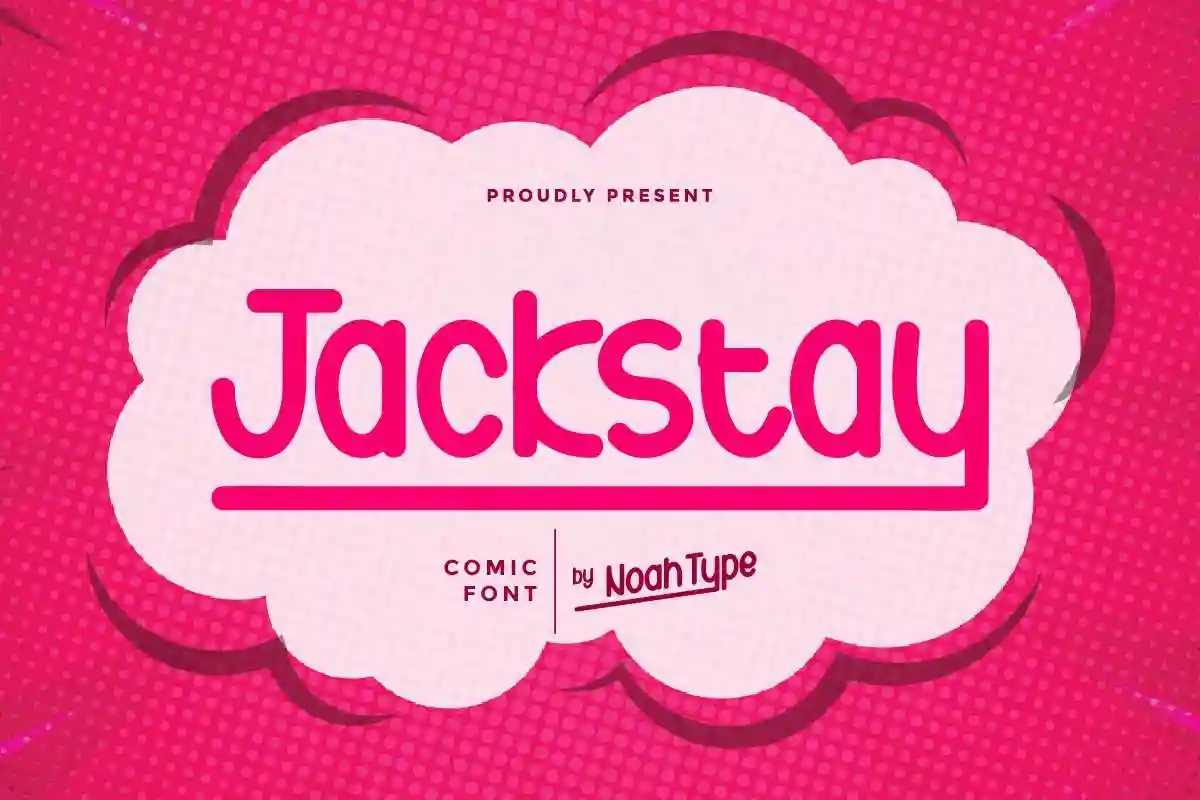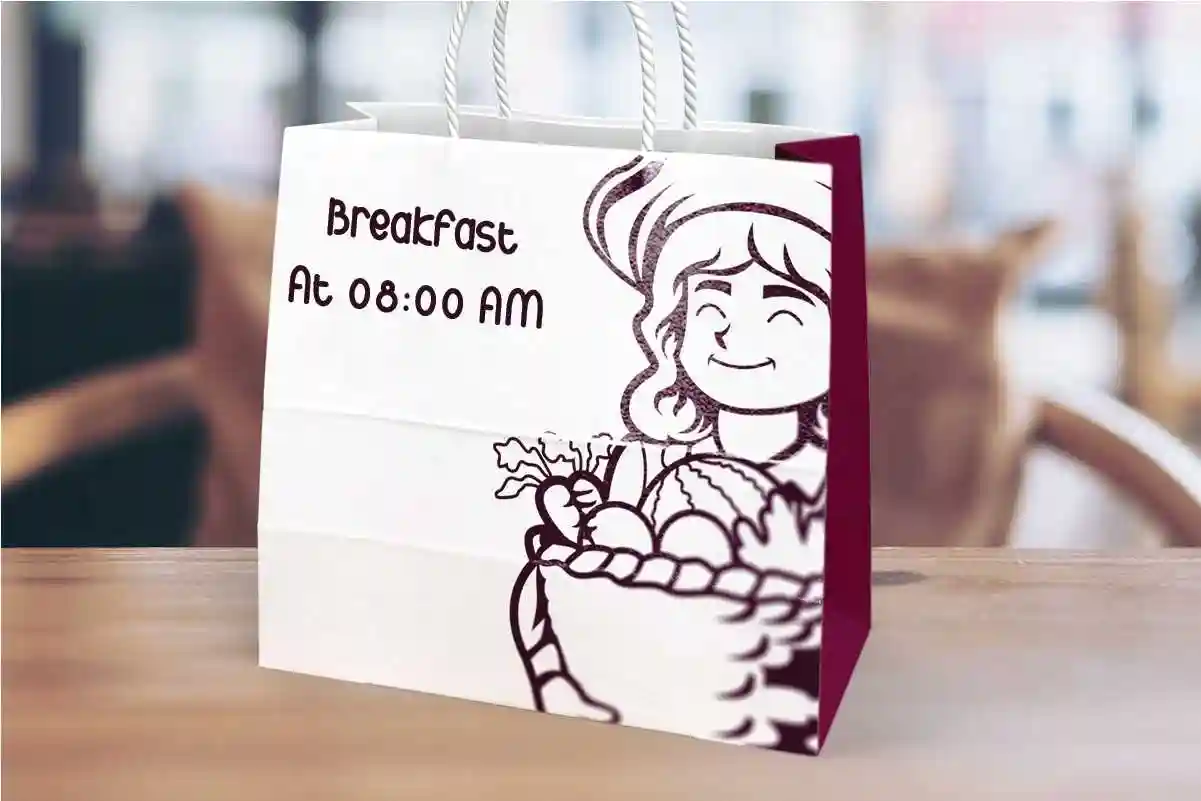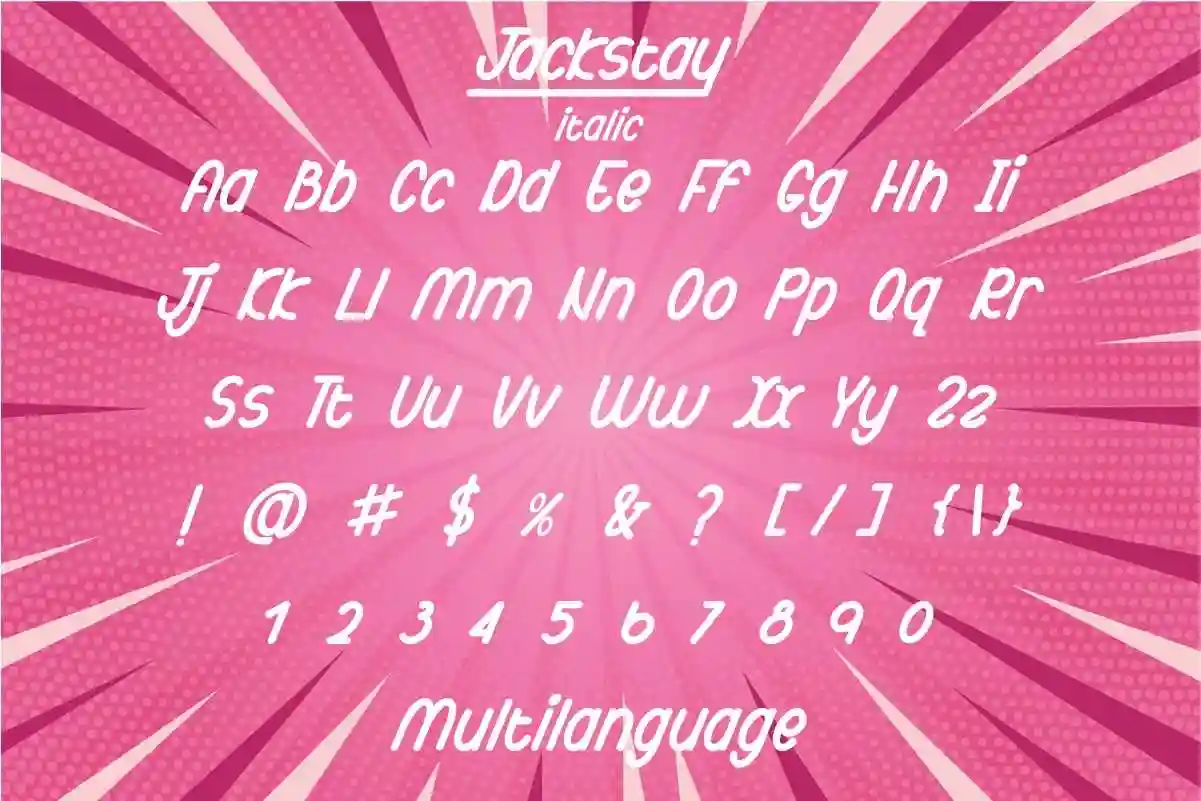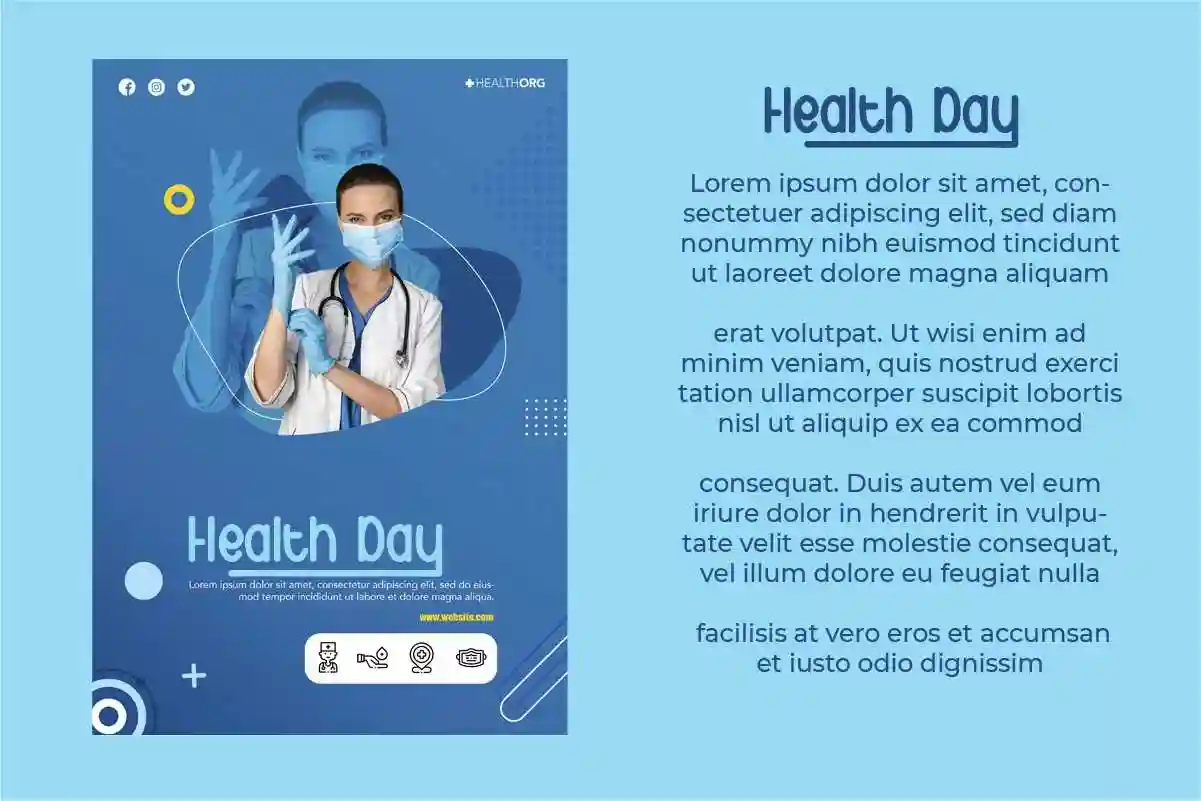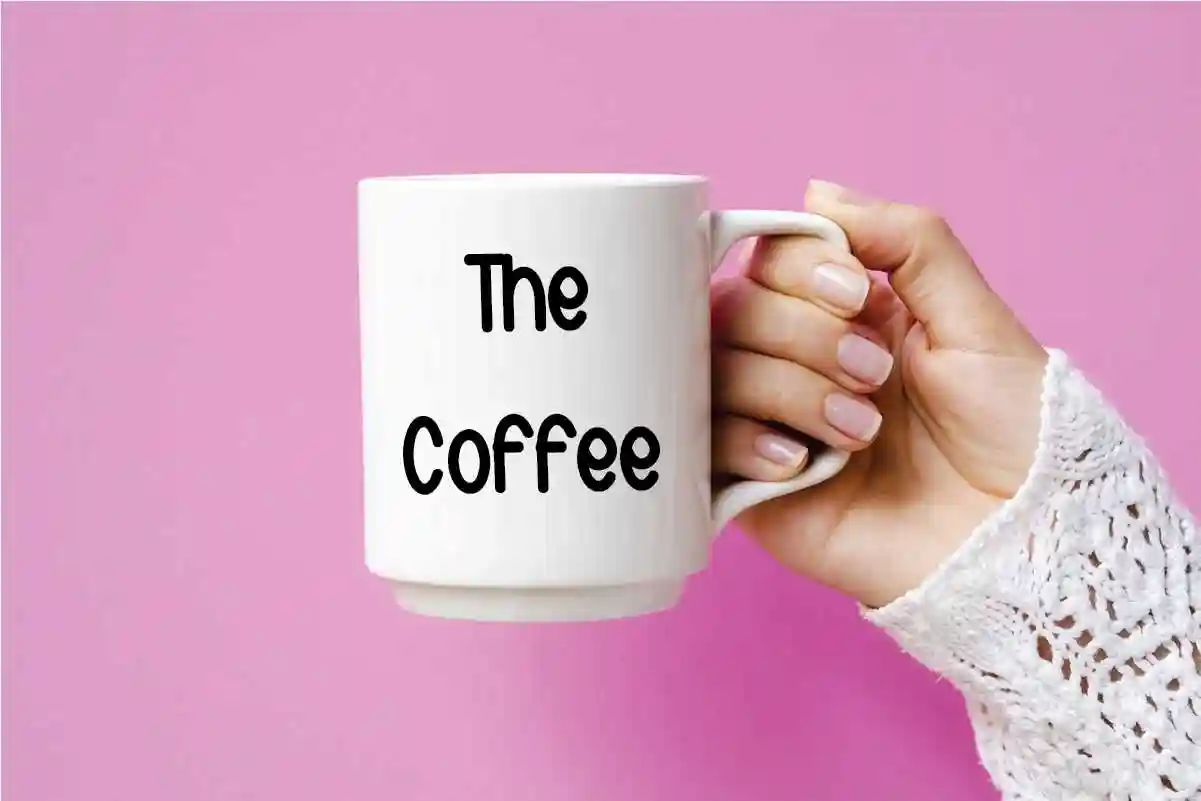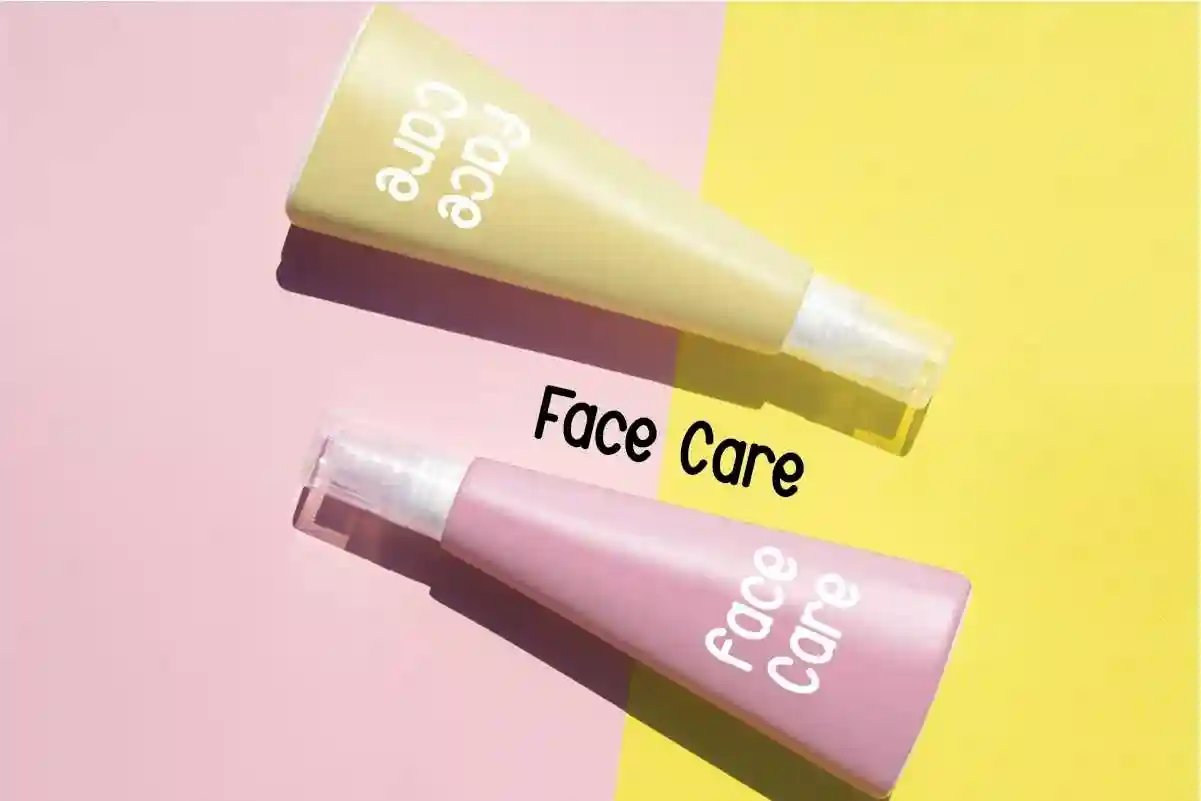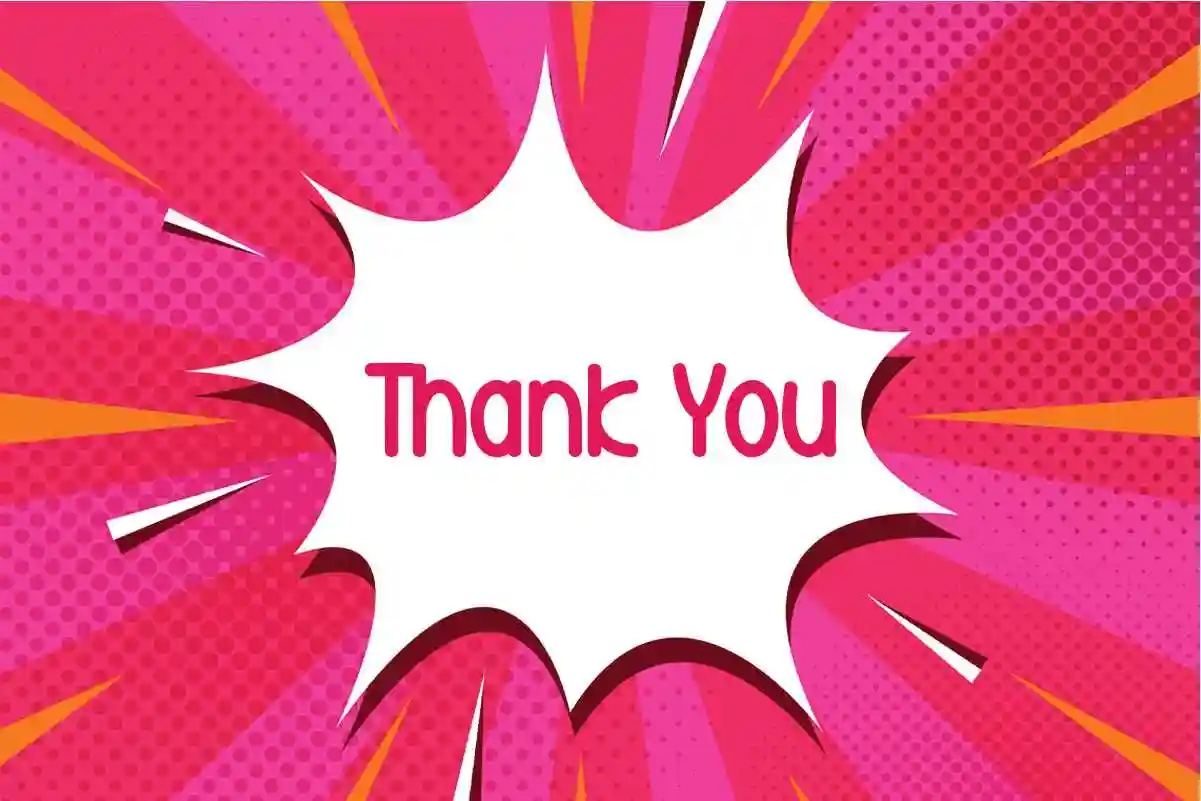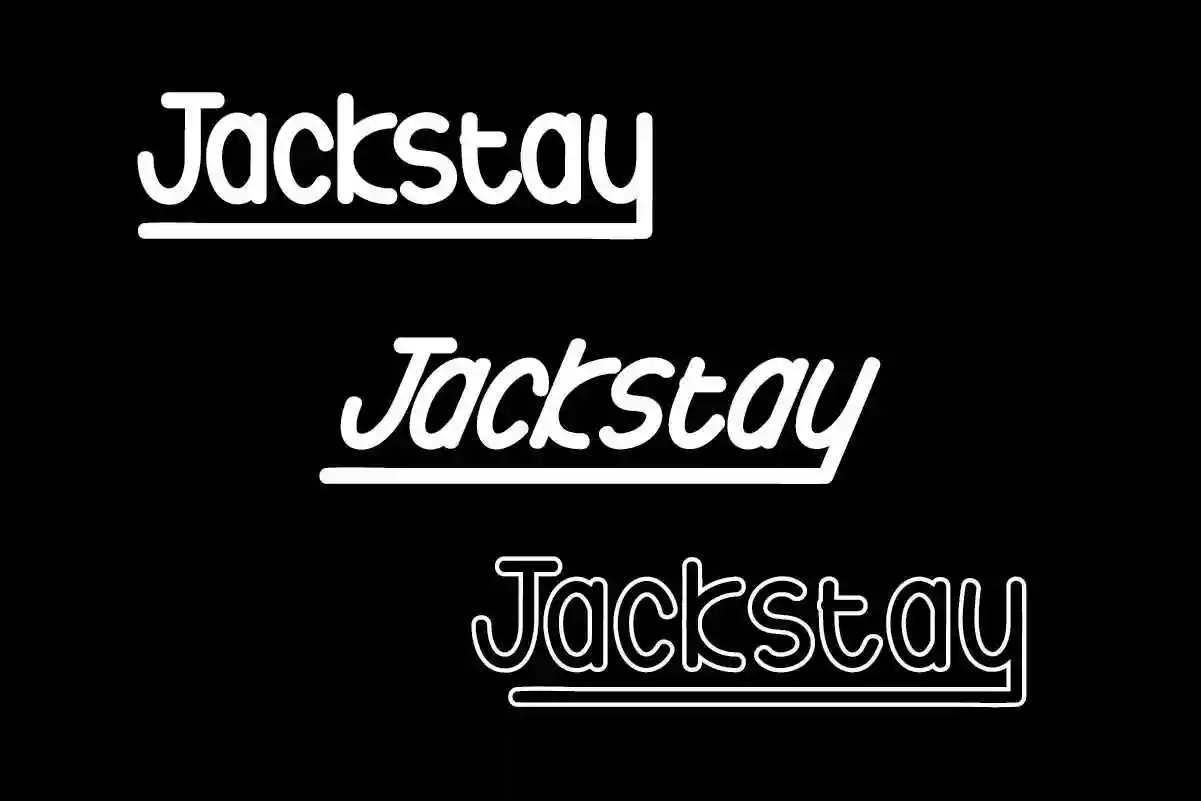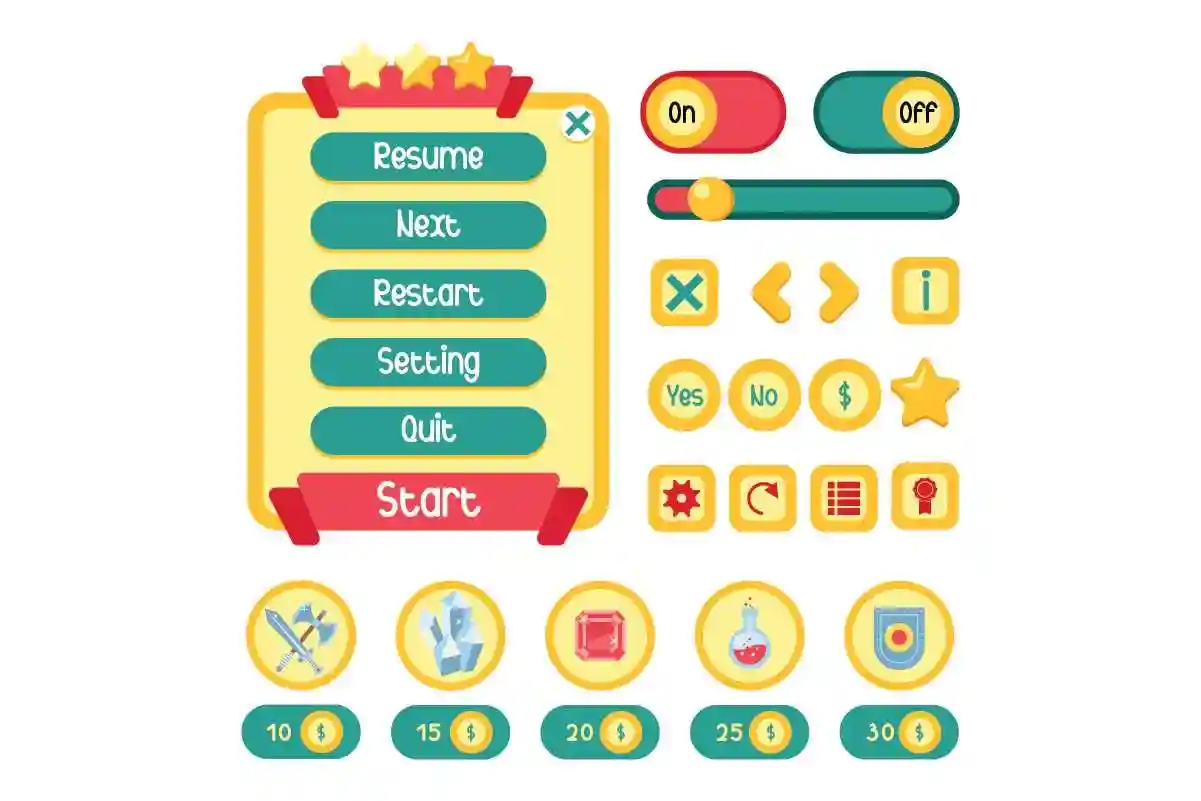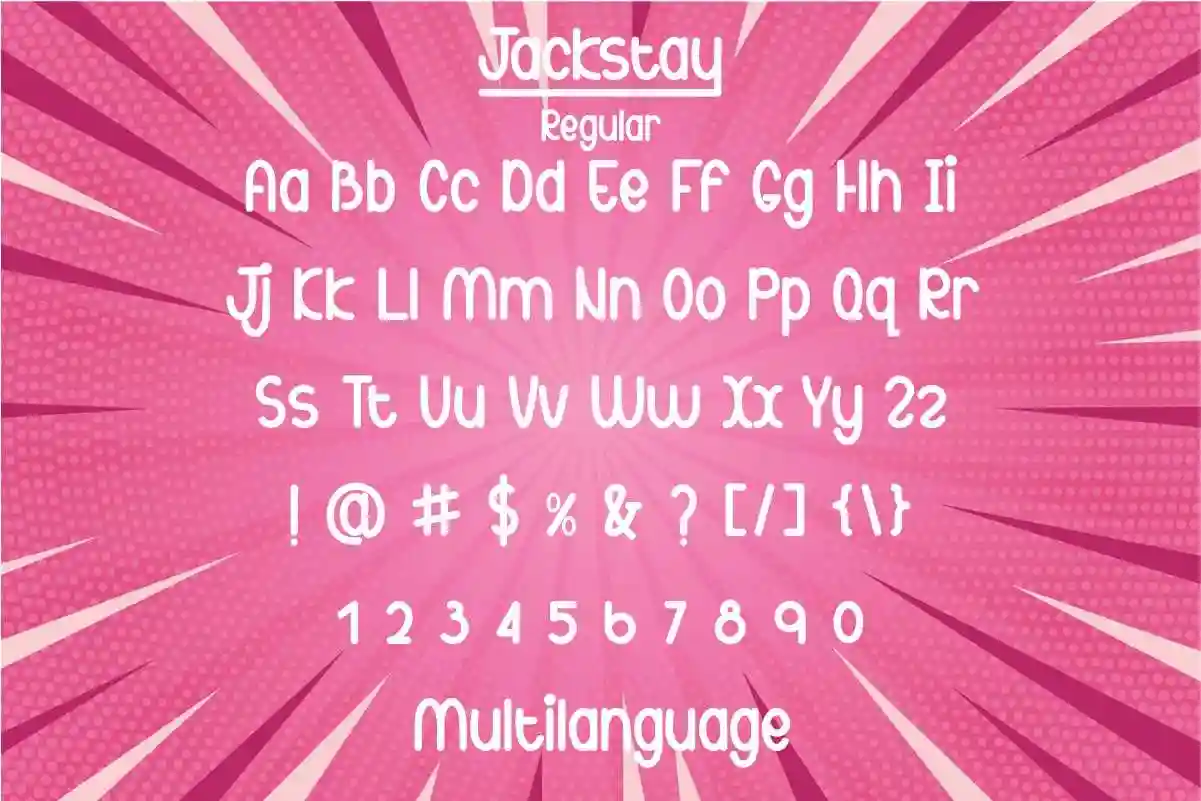
Jackstay Comic Handwriting Font
Jackstay Font is a playful comic font by NoahType. This font is crafted carefully in every its single line, created to look as close to a natural handwritten script so that it can create the perfect combination on each glyph. When we make this font, we really want to create a touch that is so free-flowing that it gives a natural impression on its use later. This fun comic font is for anyone who are needing of fun and casual designs.
Jackstay Comic Font includes three styles : Regular, Italic and Outline. The fonts come with full set of Uppercase and Lowercase Basic Characters, Numerals and Punctuation. Also it contains some alternates characters to perfectly make natural handwriting look that add more aesthetic fonts to perfect your extraordinary project. Jackstay Handwriting Font will be awesome for comic, invitations, events, movie, music, children book, school, kids products, social media etc
Jackstay Comic Font will be great for branding, logotype, social media post, poster, invitation, lettering and many more